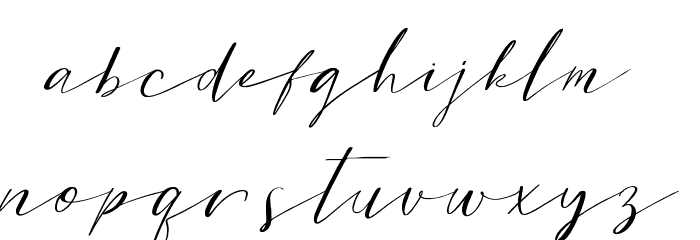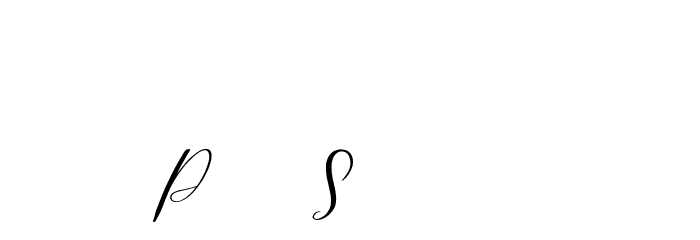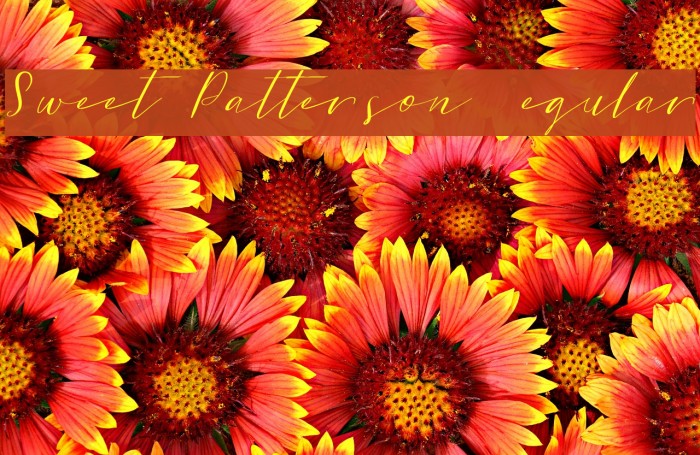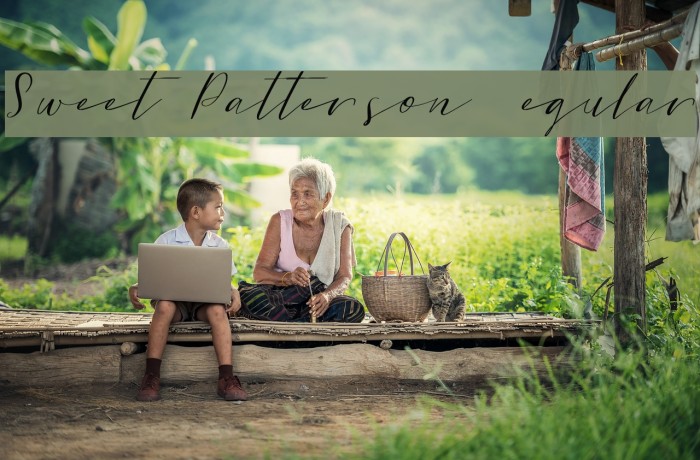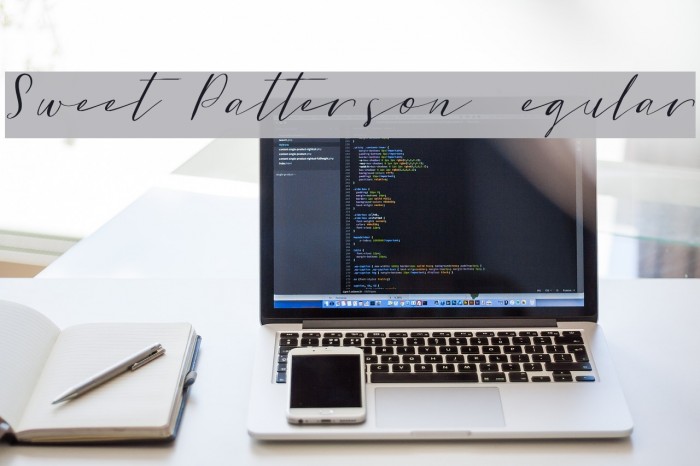
Sweet Patterson DEMO Regular Font
This font exudes elegance and sophistication with its flowing, cursive script style. The letters are gracefully connected, creating a seamless and fluid appearance. The strokes are thin and delicate, giving it a refined and airy feel. The uppercase letters stand tall with a slight slant, while the lowercase letters maintain a consistent baseline with gentle curves. This font is perfect for adding a touch of class and beauty to any design, making it ideal for invitations, greeting cards, and branding projects. Its artistic flair and graceful lines make it a standout choice for those seeking a handwritten aesthetic.
An elegant and sophisticated cursive script font with flowing, delicate strokes.
- Proposed Projects: Ideal for wedding invitations, greeting cards, elegant branding, and artistic projects.
- Overall Style: Elegant, Artistic
- Use Case: Invitations, Greeting cards, Branding